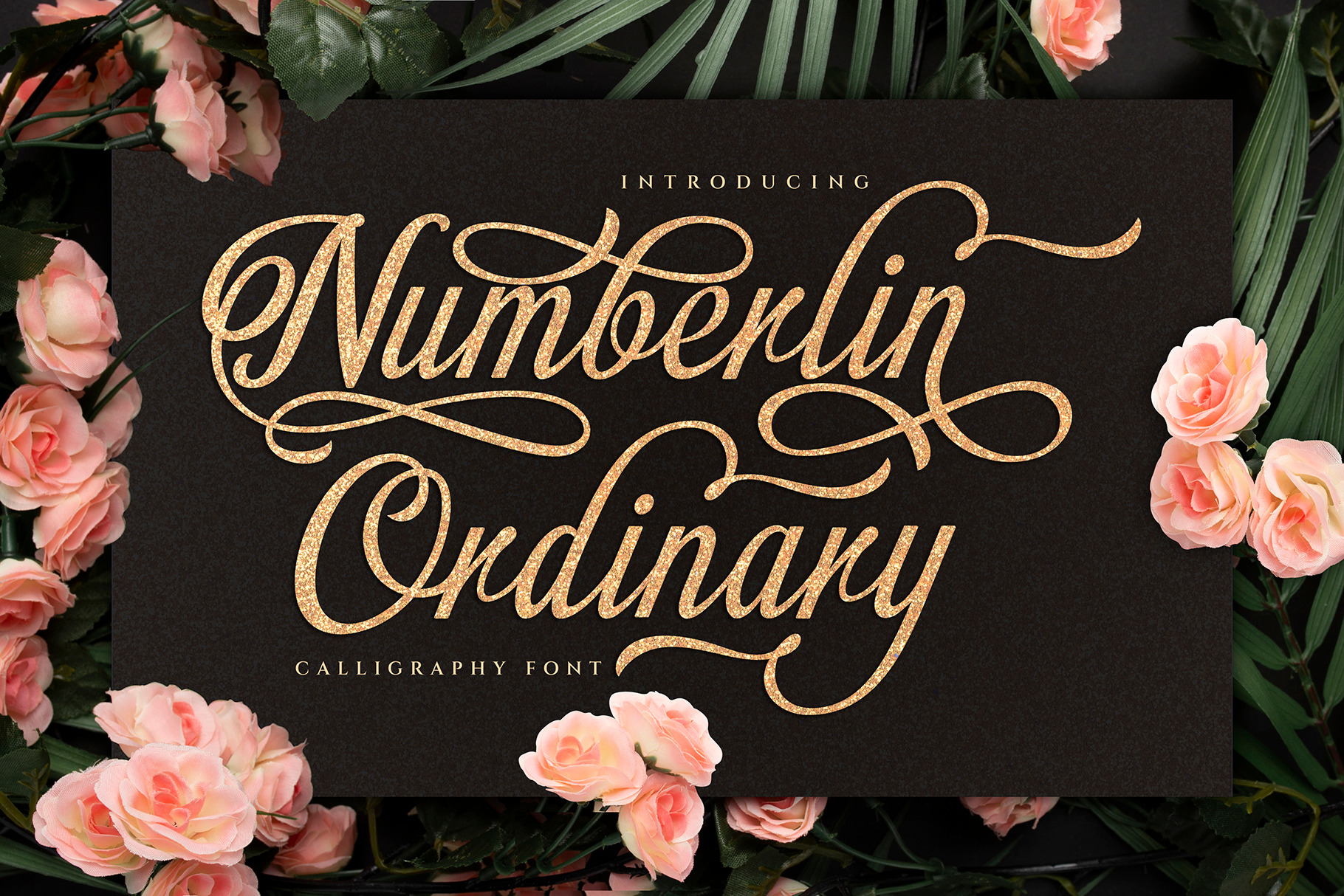
Numberline Ordinary - Script Font
Numberlin Ordinary is a modern script font. This font can be used for various purposes, including for invitations, weddings, birthdays, fashion, products, feminine, beauty, salon, product packaging, quotes, product designs, crafters, labels, photography, watermarks, t-shirts, logos & branding. Everything can be accessed using software that supports Opentype, such as Adobe Indesign, Adobe CS Illustrator, Adobe Photoshop CC, and Corel Draw.